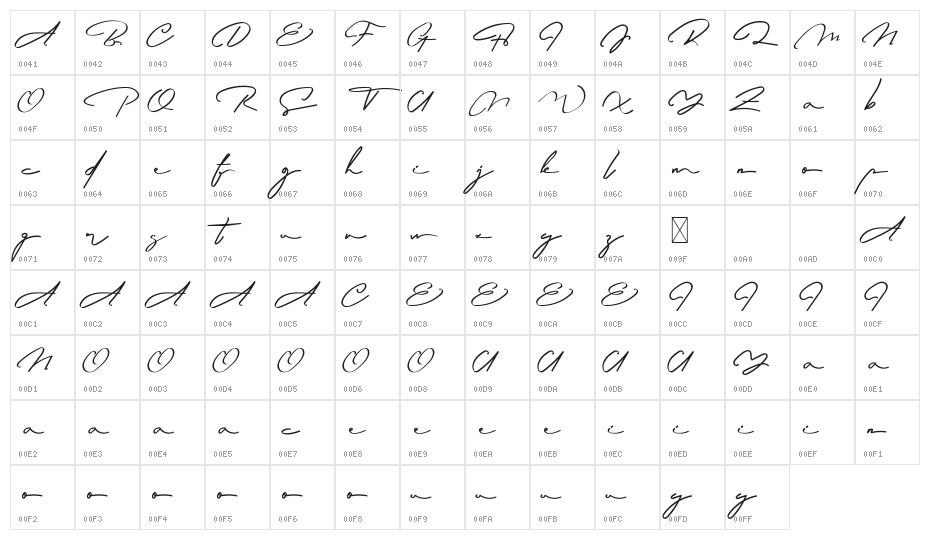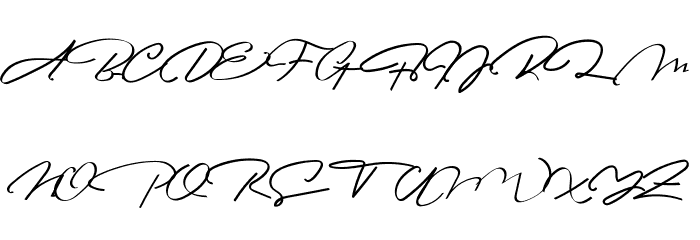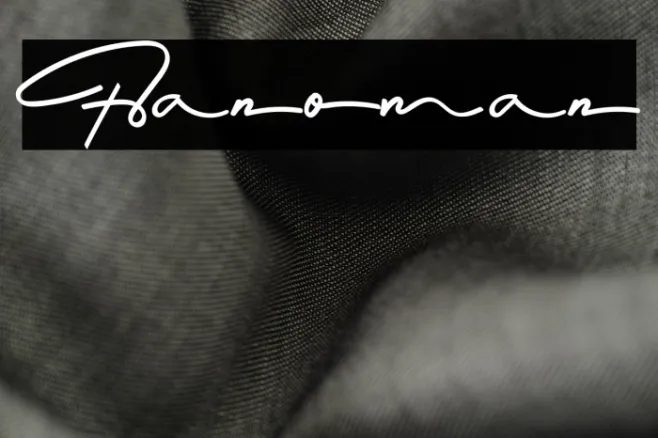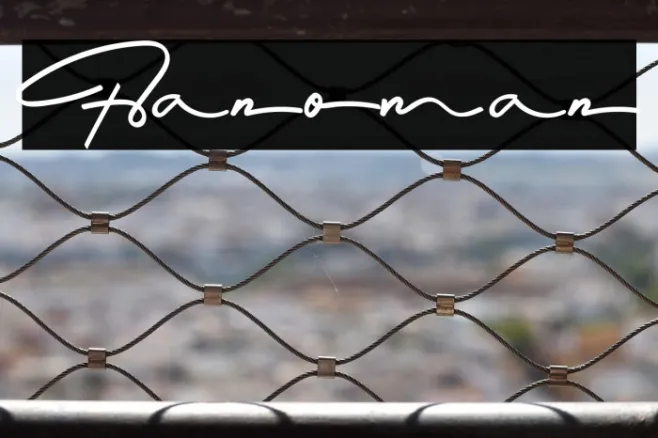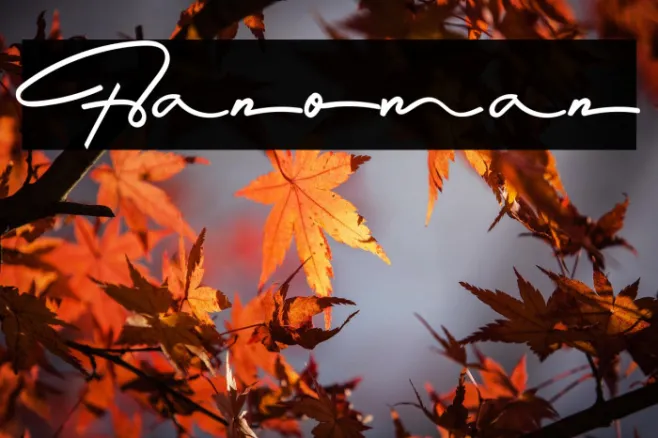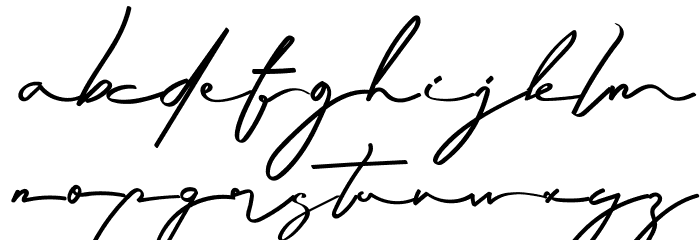
Hanoman Font
Hanoman Description
This elegant script font features fluid, interconnected strokes that mimic the natural flow of handwriting. The uppercase letters are ornate and slightly larger than the lowercase, which are more understated but maintain a consistent style. The font exhibits a graceful, cursive design with a slight slant, enhancing its handwritten appearance. The characters are closely spaced, creating a cohesive and continuous look. The overall design is sophisticated and artistic, making it suitable for projects that require a personal touch. The font's delicate lines and curves give it a refined and stylish appearance, perfect for invitations, greeting cards, or any design that benefits from a touch of elegance.
| Use Case | Invitations, Greeting cards, Personal branding |
| Proposed Projects | Ideal for wedding invitations, greeting cards, personal branding, and elegant stationery. |